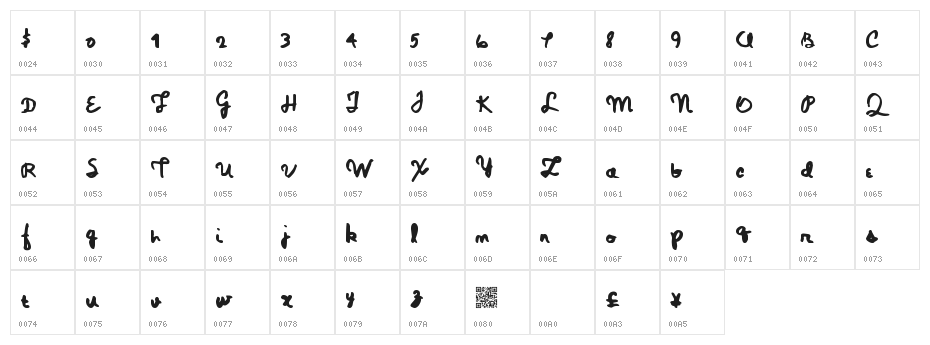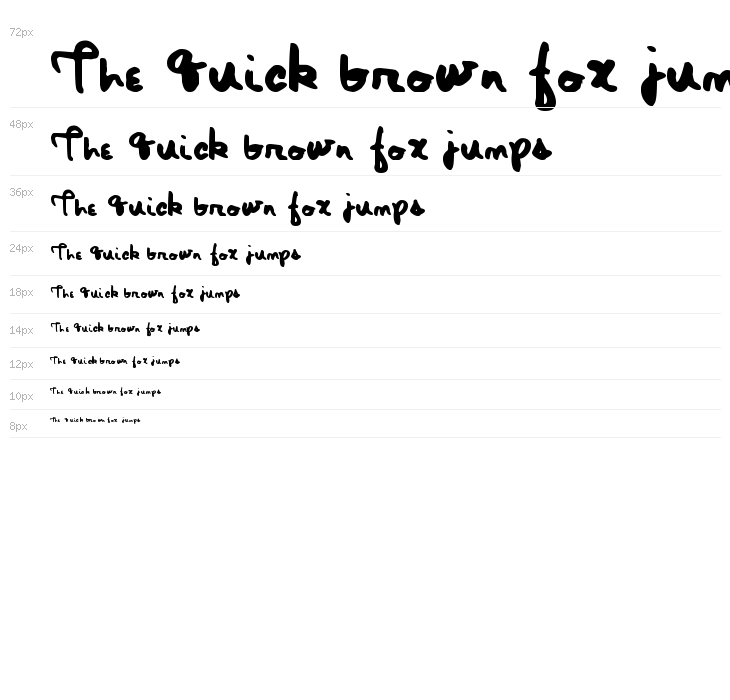
MagicPens Font
MagicPens Description
This font exhibits a playful and artistic style, characterized by its bold, fluid strokes and a handwritten appearance. The uppercase letters are distinct with a whimsical flair, while the lowercase letters maintain a consistent flow, enhancing the font's casual and friendly vibe. Numbers and special characters are crafted with the same lively energy, making them stand out while remaining cohesive with the overall design. The font's organic curves and bold presence make it suitable for projects that require a personal touch or a creative, informal look.